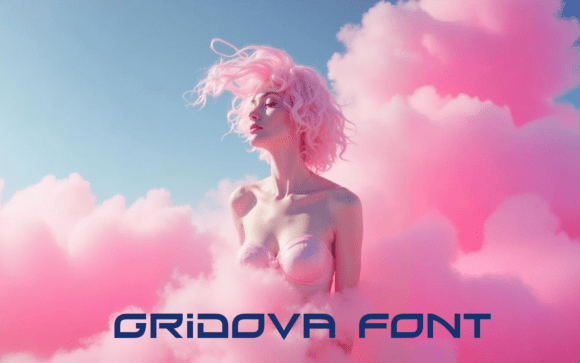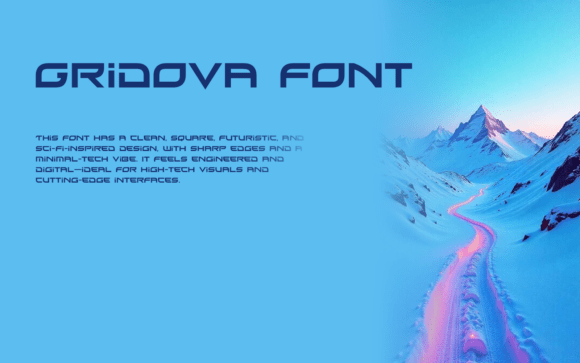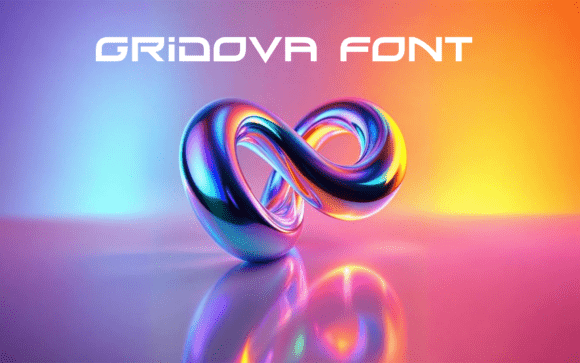
Gridova Font
About the Gridova Font
The Gridova Font is here to transform your projects with its distinctive character and style. Meet Gridova – the font for a future written in code.
Its angular structure and clean form bring digital clarity to your branding.
Perfect for tech, AI, and next-gen products that demand precision and presence.
Speak the language of tomorrow – with Gridova.
Gridova’s strong geometric forms excel in headlines, logos, and short, impactful statements. Its clean lines make it ideal for branding materials, posters, and even select packaging applications where a modern, technological aesthetic is desired. However, its angularity and relatively high x-height make it less suitable for body copy or extended text blocks. Avoid using it for UI elements where readability over short distances is crucial.
To complement Gridova’s bold personality, consider pairing it with a neutral sans-serif like Open Sans for body text, providing a balance of strength and readability. For a more sophisticated look, a classic serif such as Garamond can add a touch of timeless elegance, creating a striking contrast. Alternatively, a playful script font could inject a surprising element of personality when used sparingly, such as for a tagline or secondary branding element.
Gridova projects an image of confident modernity and technological prowess. Its core personality is bold, assertive, and undeniably digital. This makes it a strong choice for brands focusing on innovation, cutting-edge technology, and forward-thinking design.
Gridova Font Usage Examples
Gridova Font Example